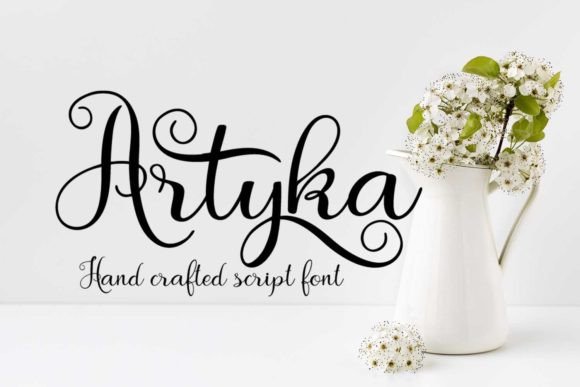
The Artyka Font: A Modern, Trendy, and Feminine Handwritten Delight
I’ll never forget the moment I stumbled upon the perfect font for a wedding invitation project. I had been searching for what felt like hours, trying out font after font, but nothing seemed quite right. That was until I discovered Artyka – a modern, trendy, and feminine handwritten font that instantly captured the warm and romantic essence of the occasion. In this article, I’ll share my experience with Artyka, its features, and how to make the most of this beautiful font in your creative projects.
An Honest Review of Artyka Font
What I Love About Artyka ✨
- 💕 Warm and romantic feel, perfect for wedding invitations, thank you cards, and quotes
- 🎨 Highly versatile, suitable for various design projects, including logos, business cards, and greeting cards
- 🖋️ Beautifully crafted with attention to detail, giving it a unique and handmade touch
- ✅ Easy to read and works well in both digital and print formats
- ⚠️ Some users may find the font a bit too ornate or feminine for certain projects
- ⚠️ Limited availability of bold or heavy weights, which may not be suitable for all design needs
- Experiment with OpenType features, such as glyphs and stylistic alternates, to add unique touches to your design
The Backstory of Artyka Font
Artyka font was designed with the intention of creating a modern, trendy, and feminine handwritten font that captures the essence of romance and warmth. The designer aimed to create a font that would be versatile and easy to use, making it perfect for a wide range of creative projects. While the actual design process and inspiration may be unknown, it’s clear that Artyka has become a popular choice among designers and crafters.
| What type of projects is Artyka font best suited for? | Artyka font is perfect for wedding invitations, thank you cards, quotes, greeting cards, logos, business cards, and any other design that needs a handwritten touch. |
| Is Artyka font easy to read? | Yes, Artyka font is designed to be easy to read, making it suitable for both digital and print formats. |
| Does Artyka font support OpenType features? | Yes, Artyka font supports OpenType features, including glyphs and stylistic alternates, which can be accessed in compatible design software. |